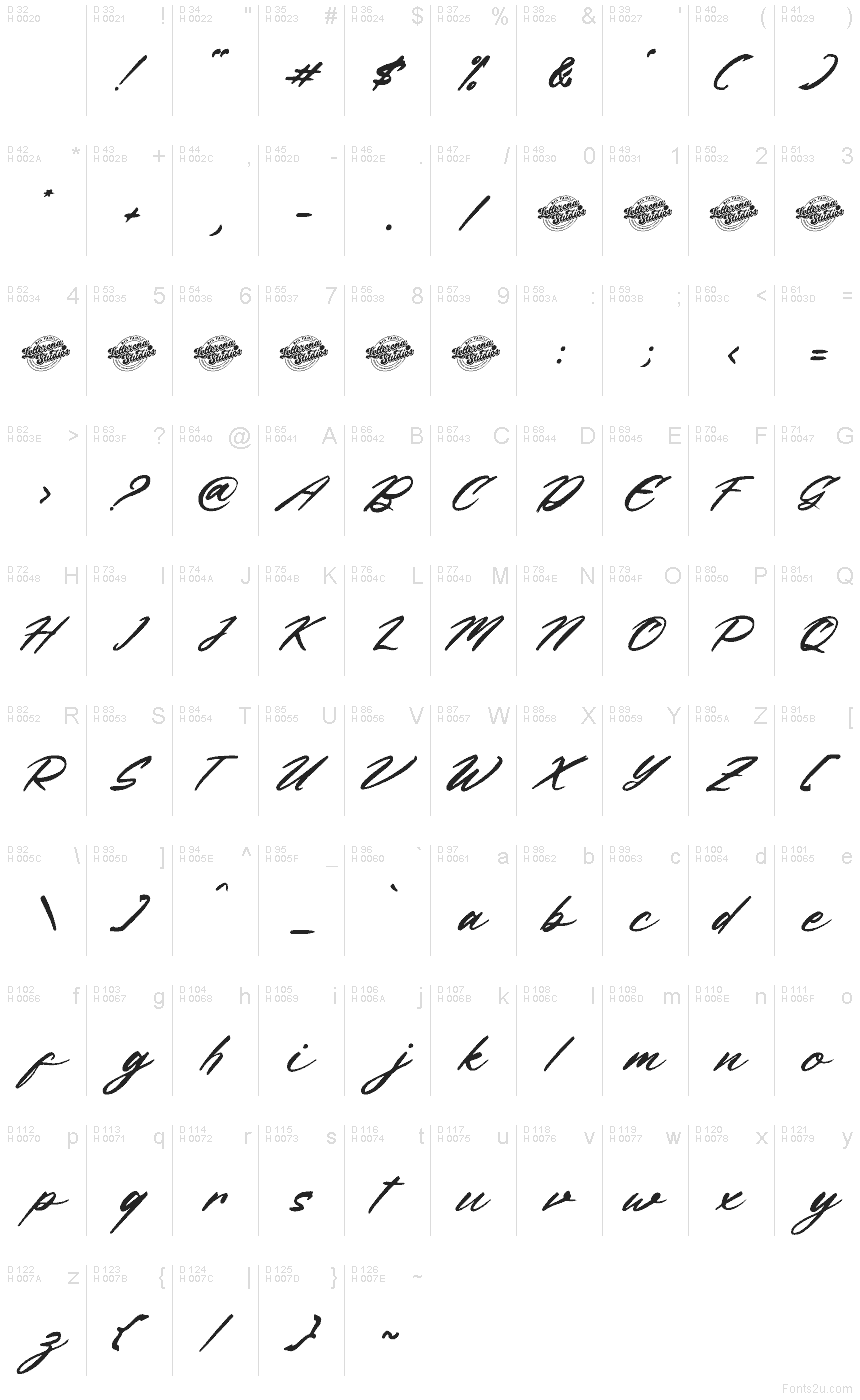
Begatory DEMO VERSION Italic
Begatory Italic font by Letterena Studios is a free handwritten font that embodies an elegant, fluid, and expressive feel. Its graceful and stylish design is presented in a condensed format which doesn't compromise the beauty of the characters. Each stroke feels natural, allowing for smooth and relevant integration of this typeface with other splendid design elements.
With so much to offer, this particular font can be used to decorate magazine covers, book titles on novels and children’s books, branding presentations, flyers or posters for events like galas or plays etc. And since worn-out logos are easily distinguishable from newcomers, it also enables avid searchers to finally create that perfect logo or label design they seek.